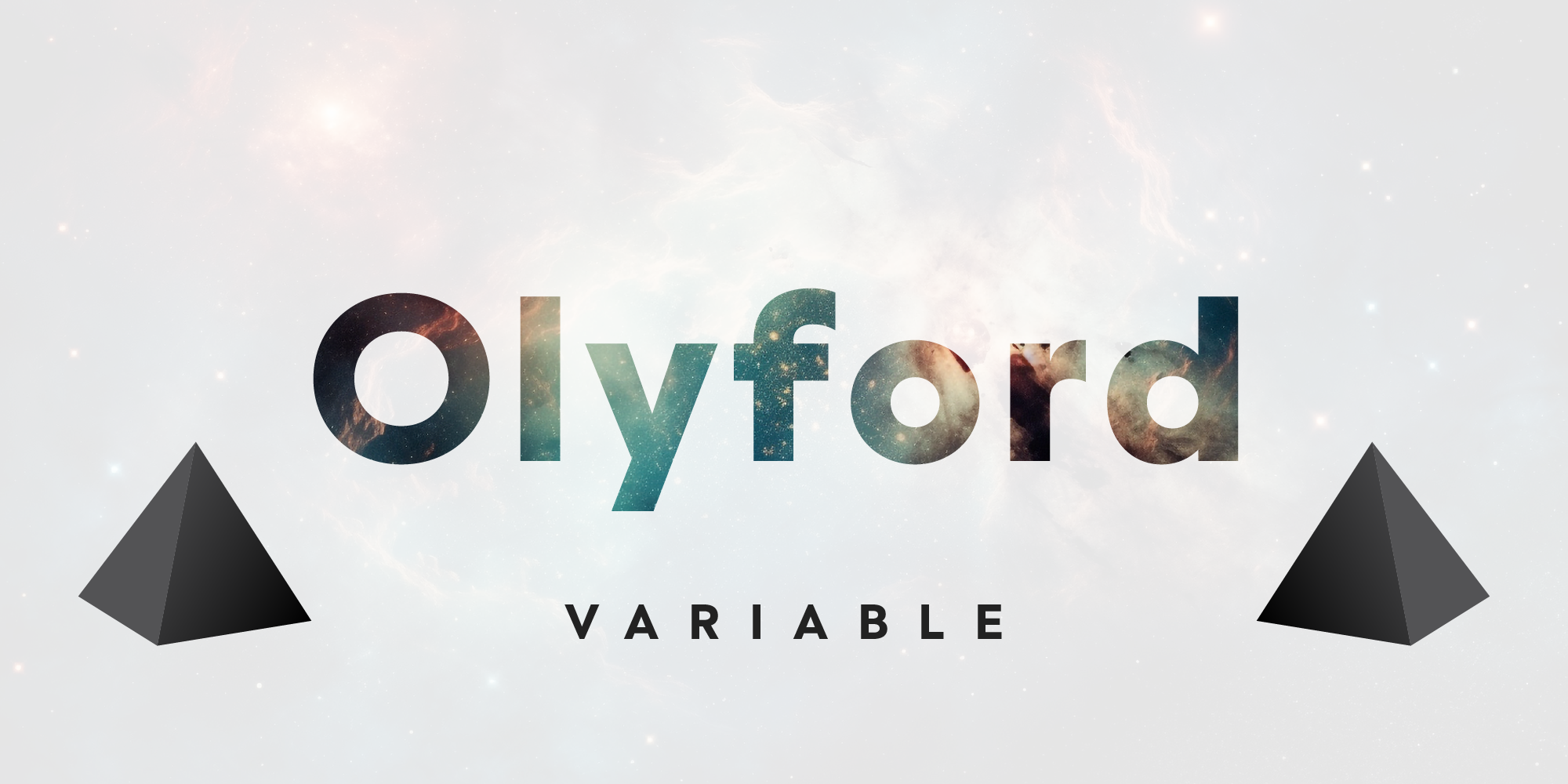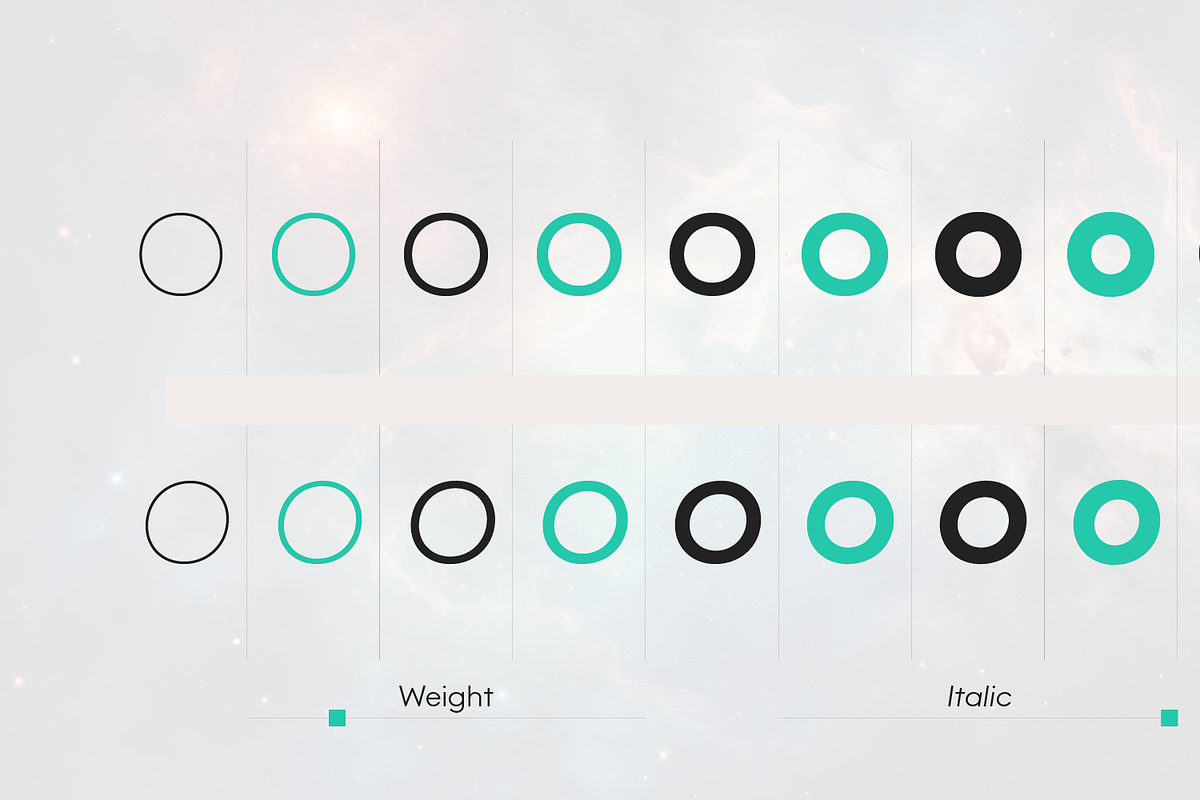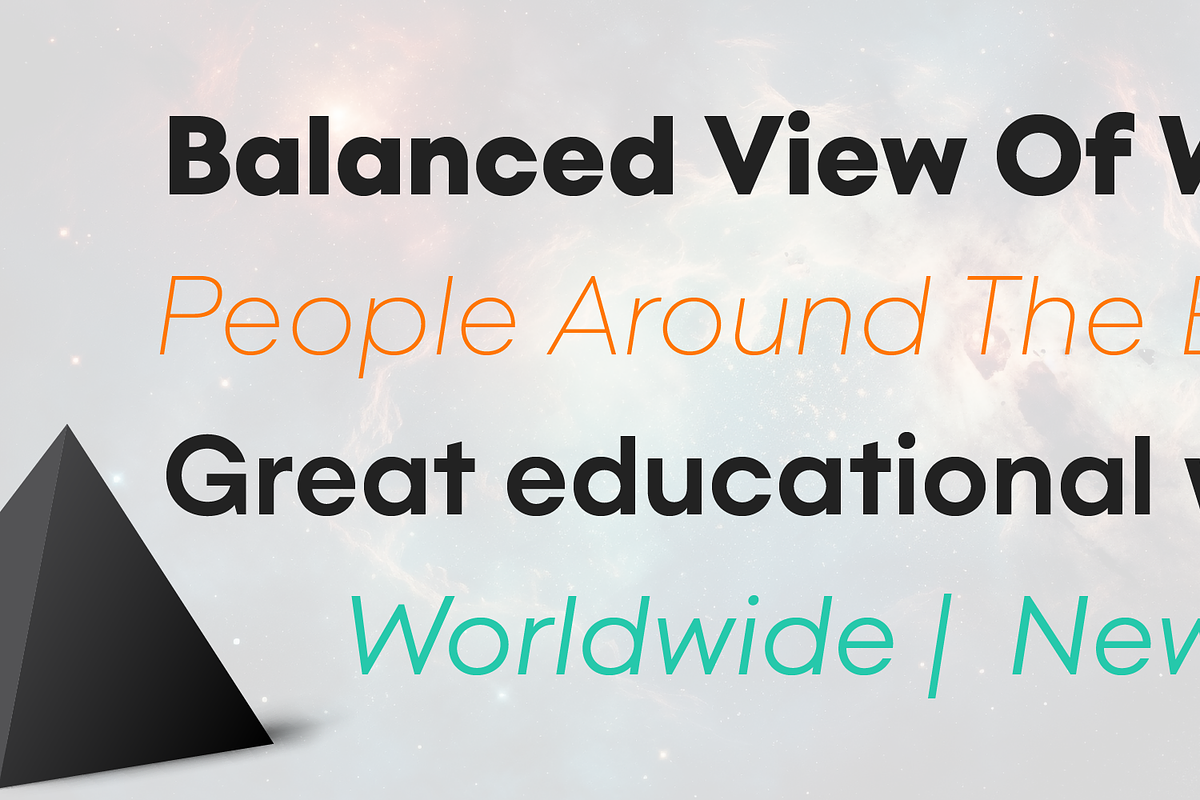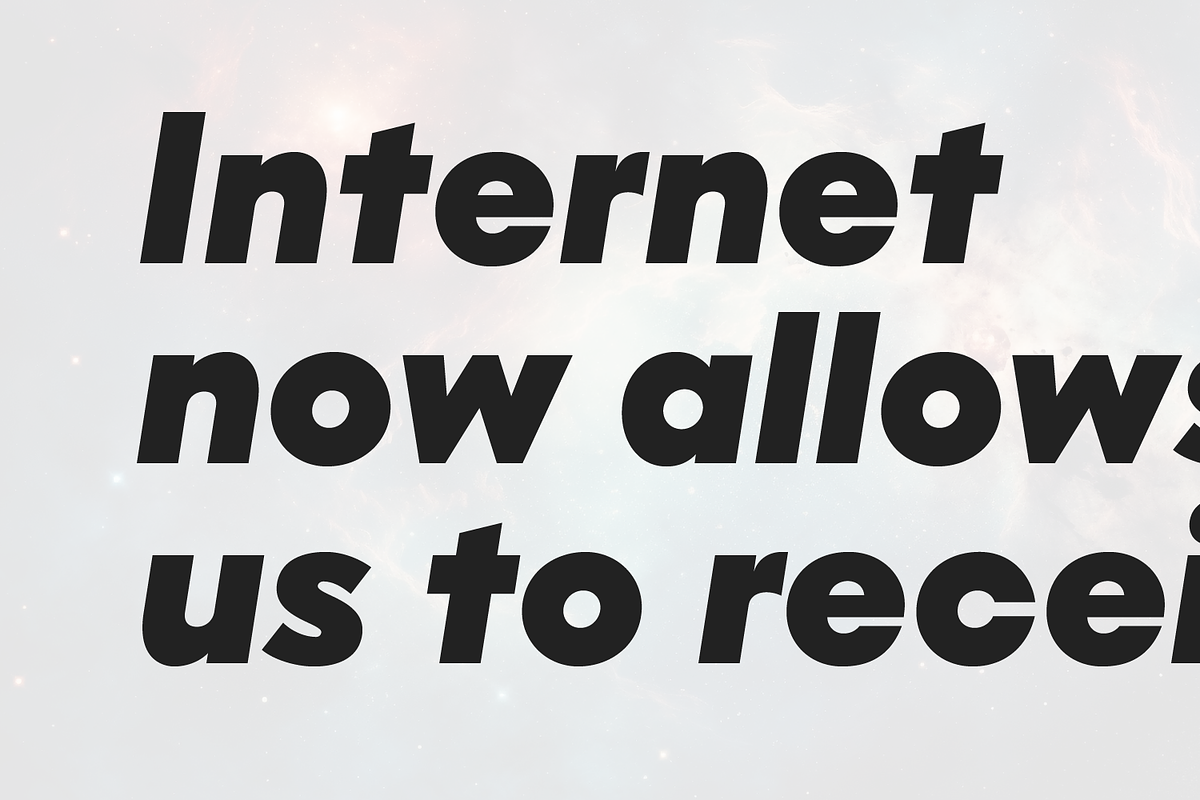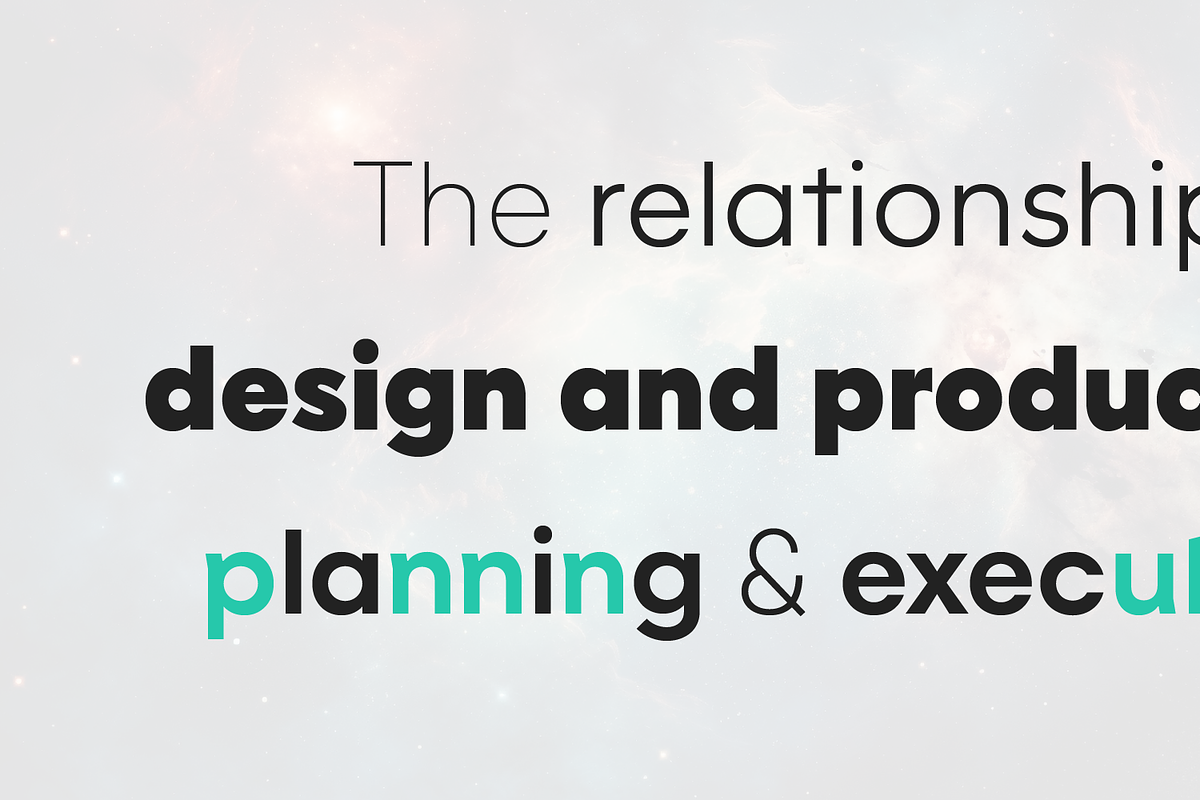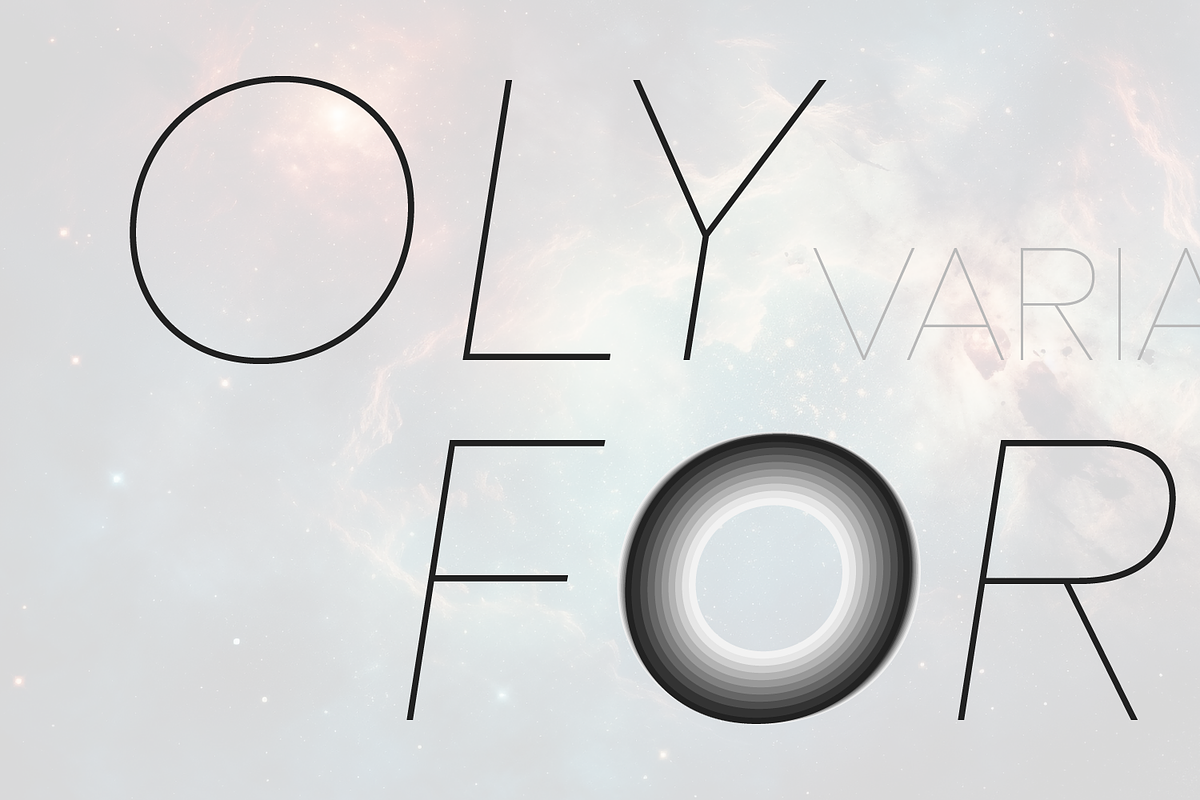
Olyford Variable Typefaces
Olyford Variable and Olyford Alt Variable are two dynamic additions to the Olyford font family. They feature a full range of weights from Thin to Heavy, along with matching true italics. Olyford Alt Variable includes alternate designs for G, I, J, and a, adding even more versatility.
OpenType features: Access All Alternates, Stylistic Alternates (Alternative n, m, p, q, r, u), Stylistic Set 1 (Alternative K, k, Cyrillic Ж, ж, К, к), Stylistic Set 2 (Alternative W), Stylistic Set 3 (Alternative t), Stylistic Set 4 (Alternative w), Stylistic Set 5 (Alternative Ø, ø), Stylistic Set 6 (Bulgarian Forms), Stylistic Set 7 (Alternative ¢, $, €, ¥), Stylistic Set 8 (Alternative Đ, Ħ, Ð), Standard Ligatures, Discretionary Ligatures, Proportional Figures, Tabular Figures, Case-Sensitive Forms, Fractions, Kerning, Denominators, Numerators, Scientific Inferiors, Subscript, Superscript, Ordinals, Localized Forms, Contextual Alternates, Capital Spacing.